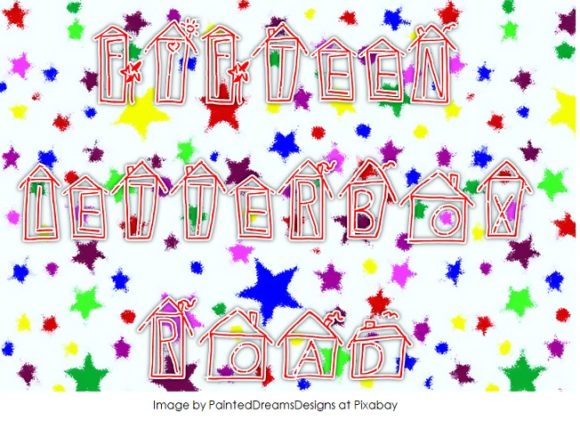
Unlocking the Joy of Alphabet Houses Font
One font that embodies this playful spirit is the Alphabet Houses Font. This charming, childlike font is designed to add a pop of color and whimsy to any project. With its unique, house-shaped letters, Alphabet Houses Font is perfect for designers looking to inject some fun and personality into their designs.
Alphabet Houses Font Key Features
- Font Family: Alphabet Houses Font is a unique, hand-drawn font family that includes uppercase and lowercase letters, numerals, and punctuation marks.
- Unique Characteristics: Alphabet Houses Font features a playful, hand-drawn style with subtle imperfections, giving it a human touch and making it perfect for creative projects.
- Character Set: Includes a comprehensive character set, including Latin, Cyrillic, and Greek alphabets, as well as punctuation marks and numerals.
Alphabet Houses Font Review
Overall, I found the Alphabet Houses Font to be a quirky and playful addition to any design project. ✨ It’s perfect for projects that require a touch of whimsy and childlike wonder. The font’s unique letterforms and character sets make it stand out from more traditional sans-serif fonts.
The font’s best features include its:
- Unique letterforms that add a touch of personality to any project
- Wide range of character sets, including numerals, punctuation, and special characters
- Good legibility, making it suitable for body text as well as headings
- ⚠️ Limited font sizes: the font may become distorted at very small or very large sizes
- ⚠️ May not be suitable for formal or professional projects
- ⚠️ Some letterforms may not be suitable for certain languages or character sets
Overall, I would recommend the Alphabet Houses Font for projects that require a fun and playful touch. While it may not be suitable for every project, it’s a great addition to any designer’s toolkit.
The Alphabet Houses font is ideal for creating whimsical and playful designs, such as:
Children’s book covers and illustrations
Party invitations and decorations
Education and learning materials
To get the most out of this font, experiment with different font sizes, colors, and styles to create unique and eye-catching designs.